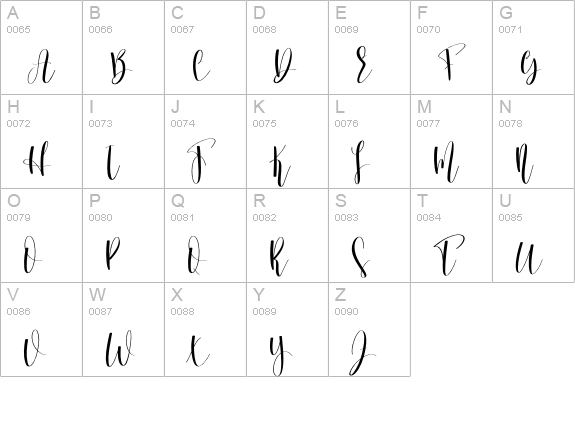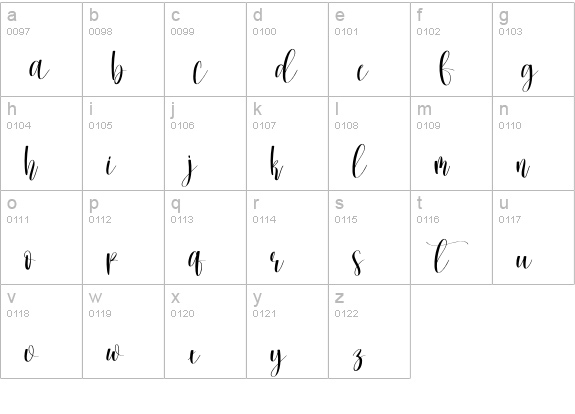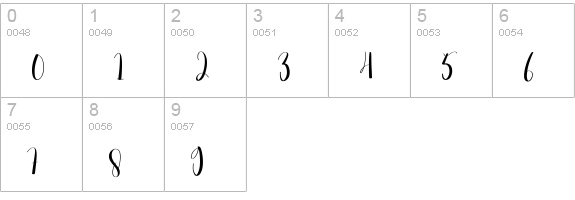
Winterday is a free for personal use font in the Script > Handwritten category, designed by scratchones. It has been downloaded 4 times and is available for Windows, Mac and Linux.
Winterday font is a whimsical and charming typeface that captures the coziness and magic of the winter season. With its delicate swirls and elegant curves, Winterday is perfect for adding a touch of warmth to your designs. This versatile font is ideal for a wide range of projects, from holiday cards to winter-themed invitations.